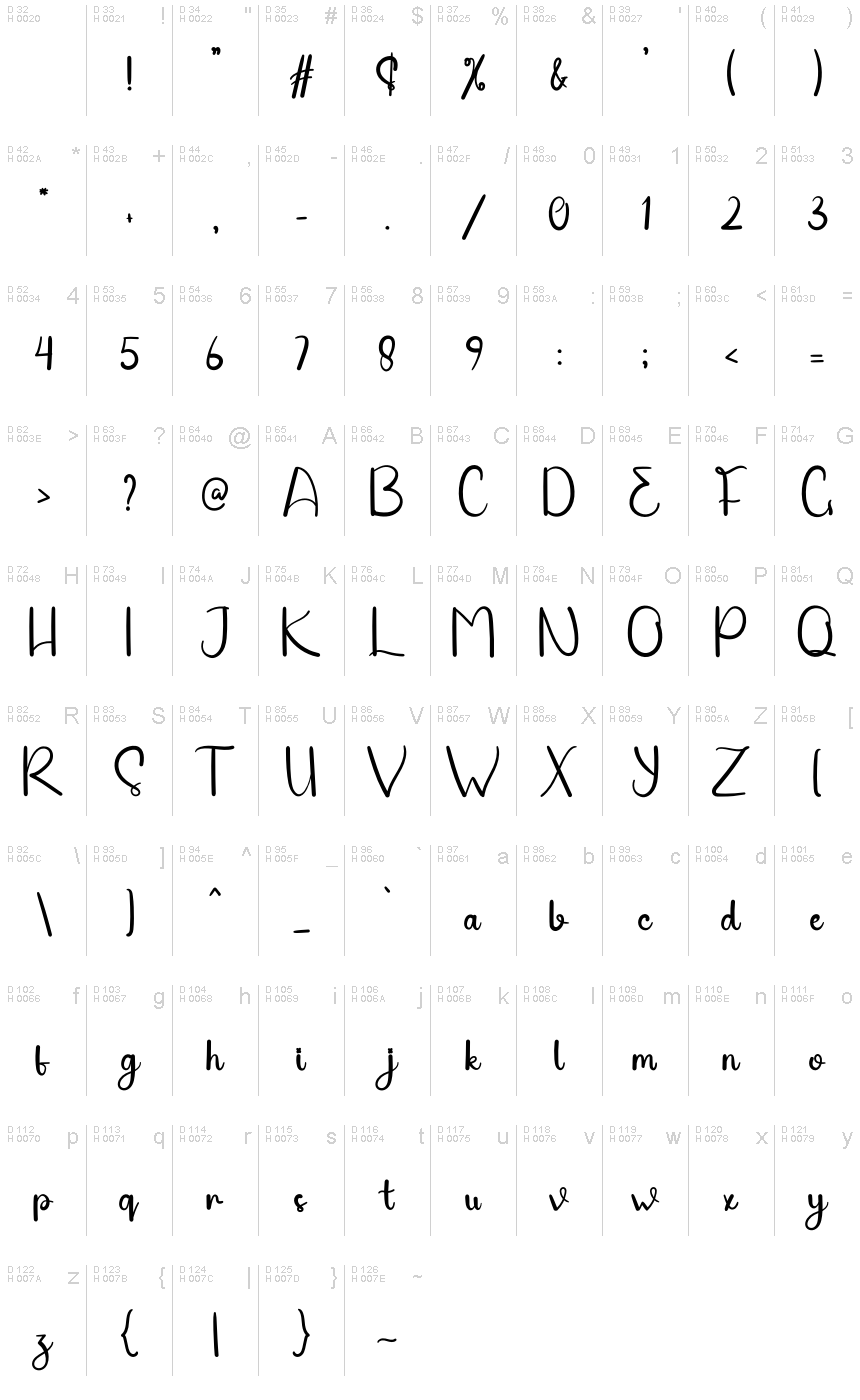
Present
Present is a distinctive handwritten font designed by Andi Moz. Its flowing, organic strokes create a sense of effortless elegance, lending a personalized touch to any text. The elegant curves and interconnected letterforms evoke a sense of handcrafted authenticity, making it an ideal choice for branding, packaging, and editorial design. The font's versatility shines through in its ability to convey a range of moods, from warm and inviting to refined and sophisticated.
This font's adaptability makes it suitable for a wide array of applications, from eye-catching headlines to captivating body copy. Its natural, expressive quality lends itself well to projects that aim to cultivate a genuine, personal connection with the audience, such as wedding invitations, stationery, or artisanal product labels.